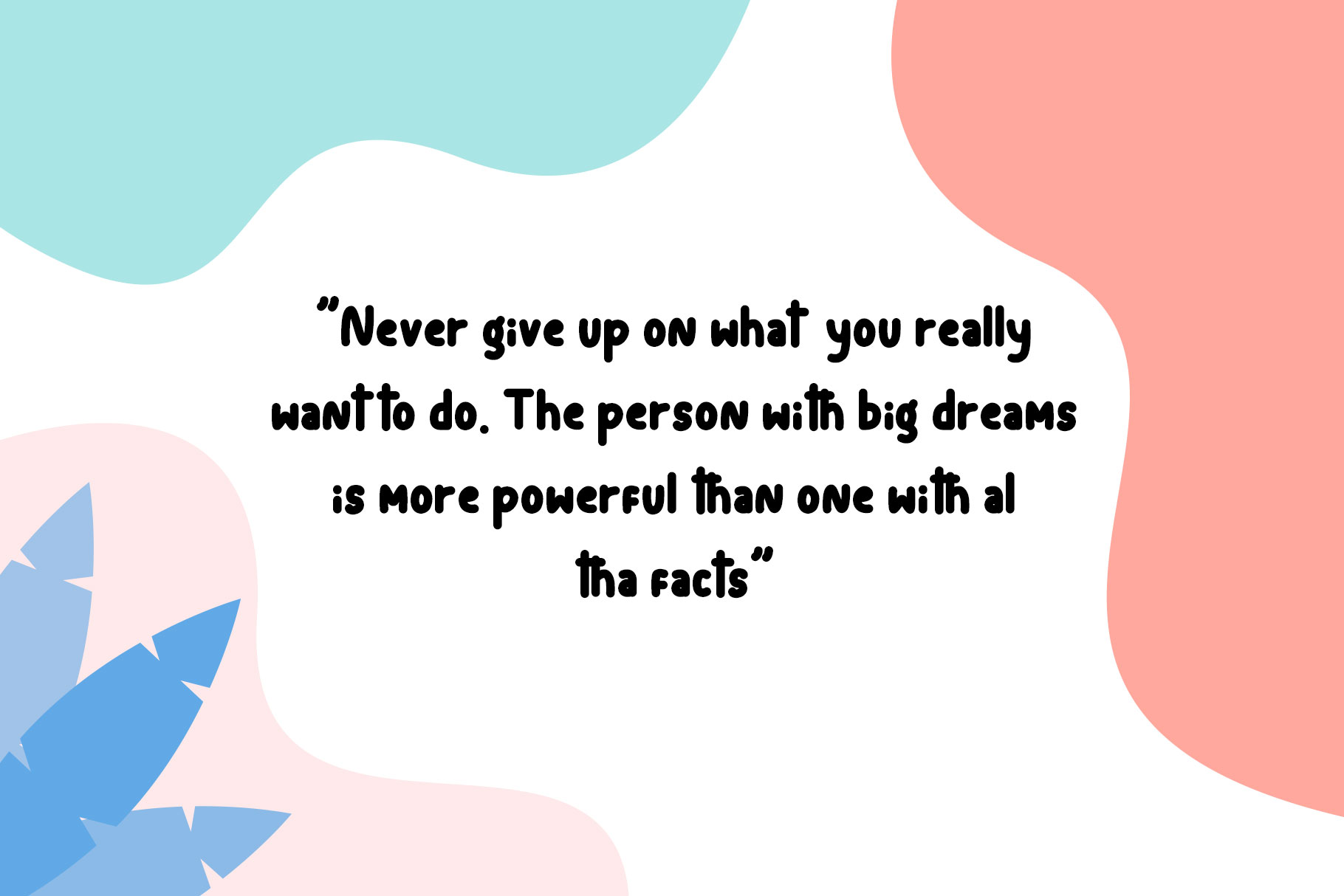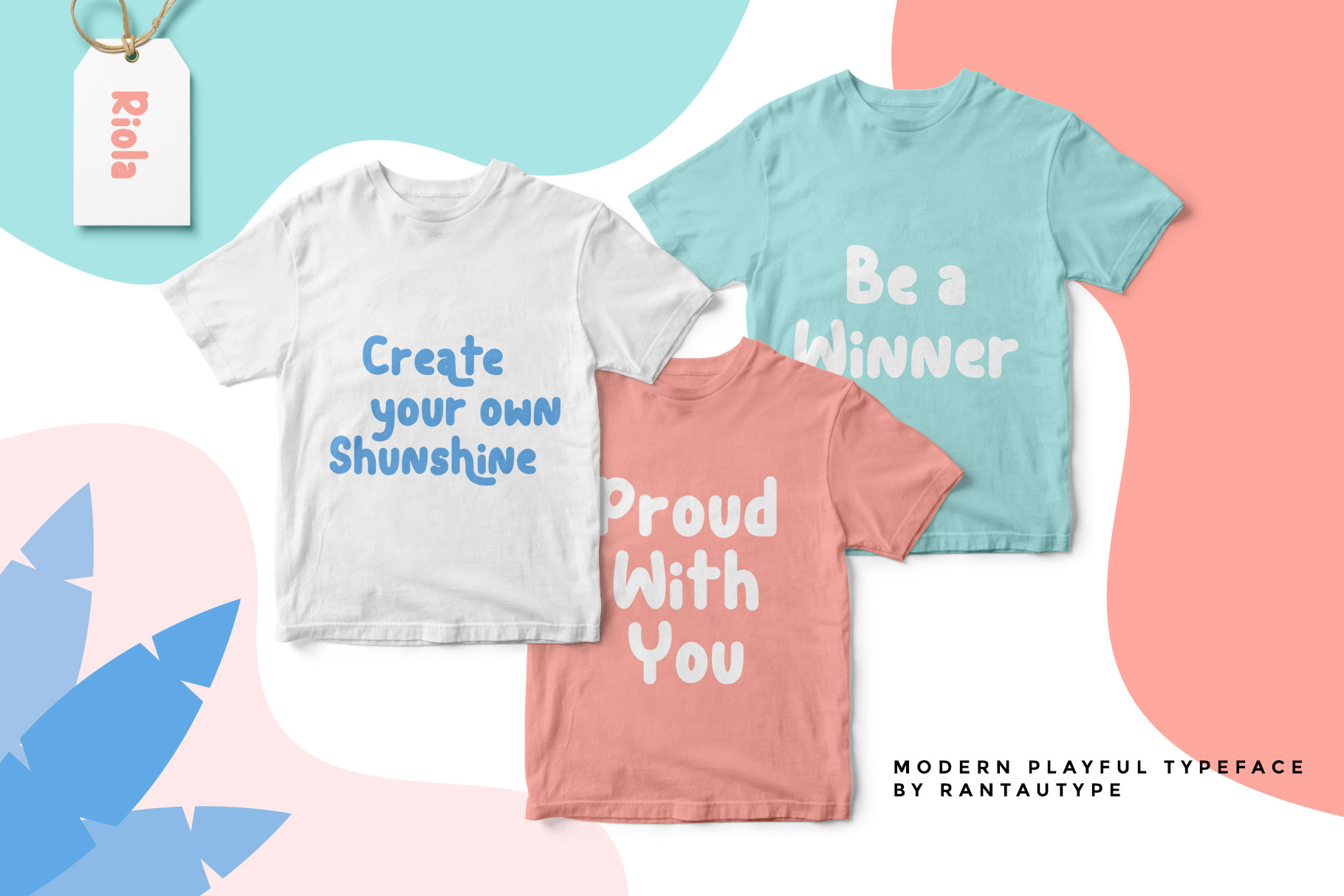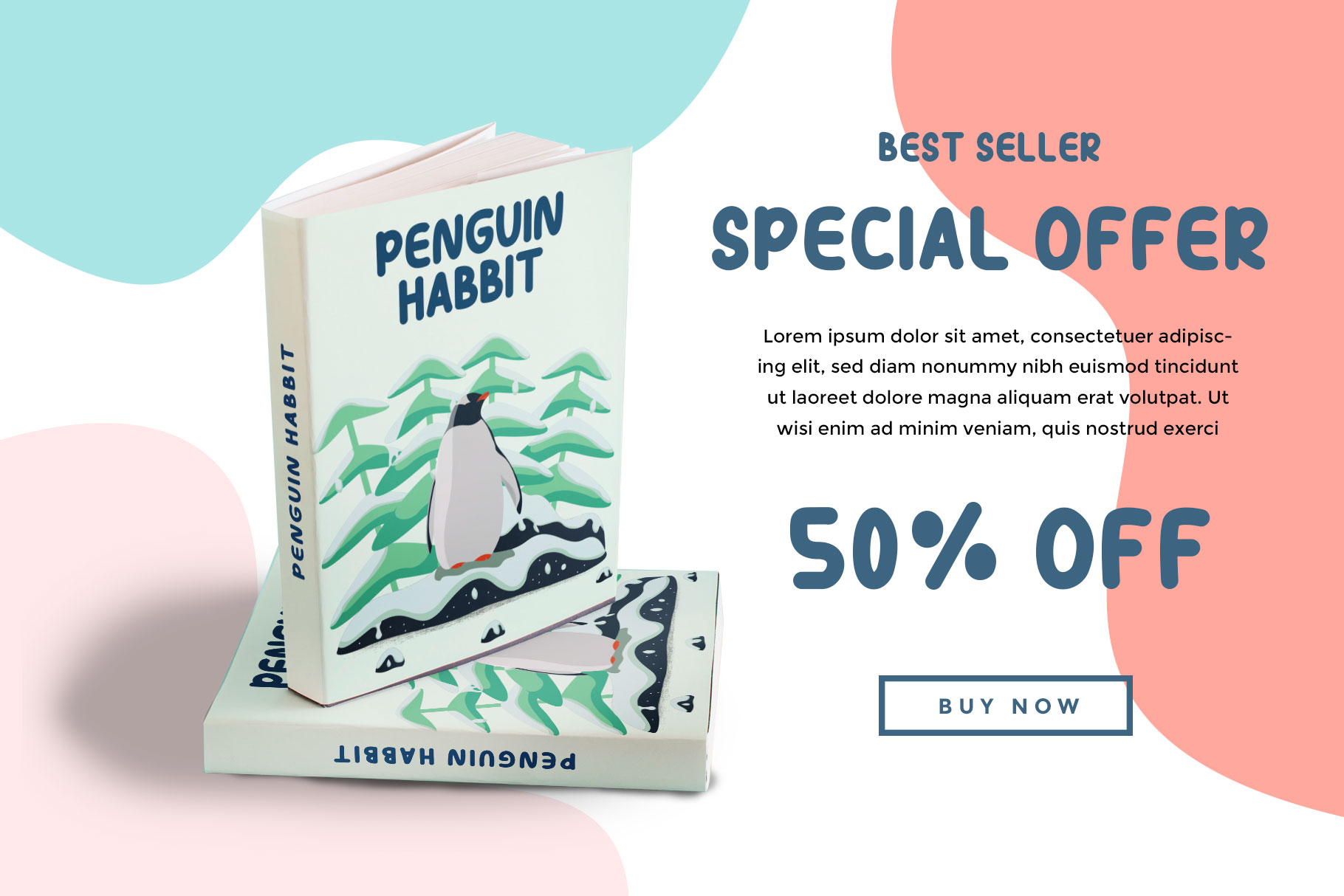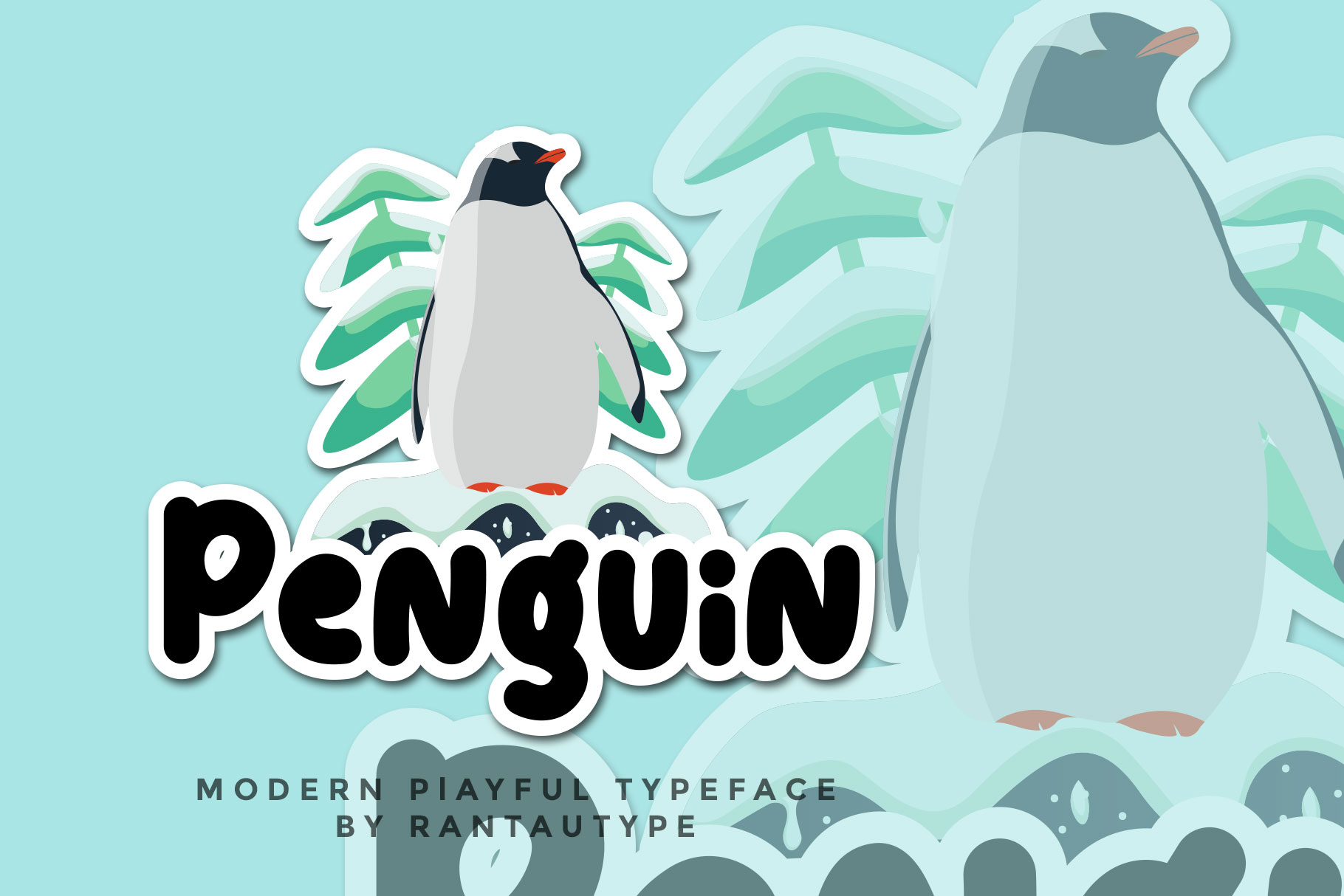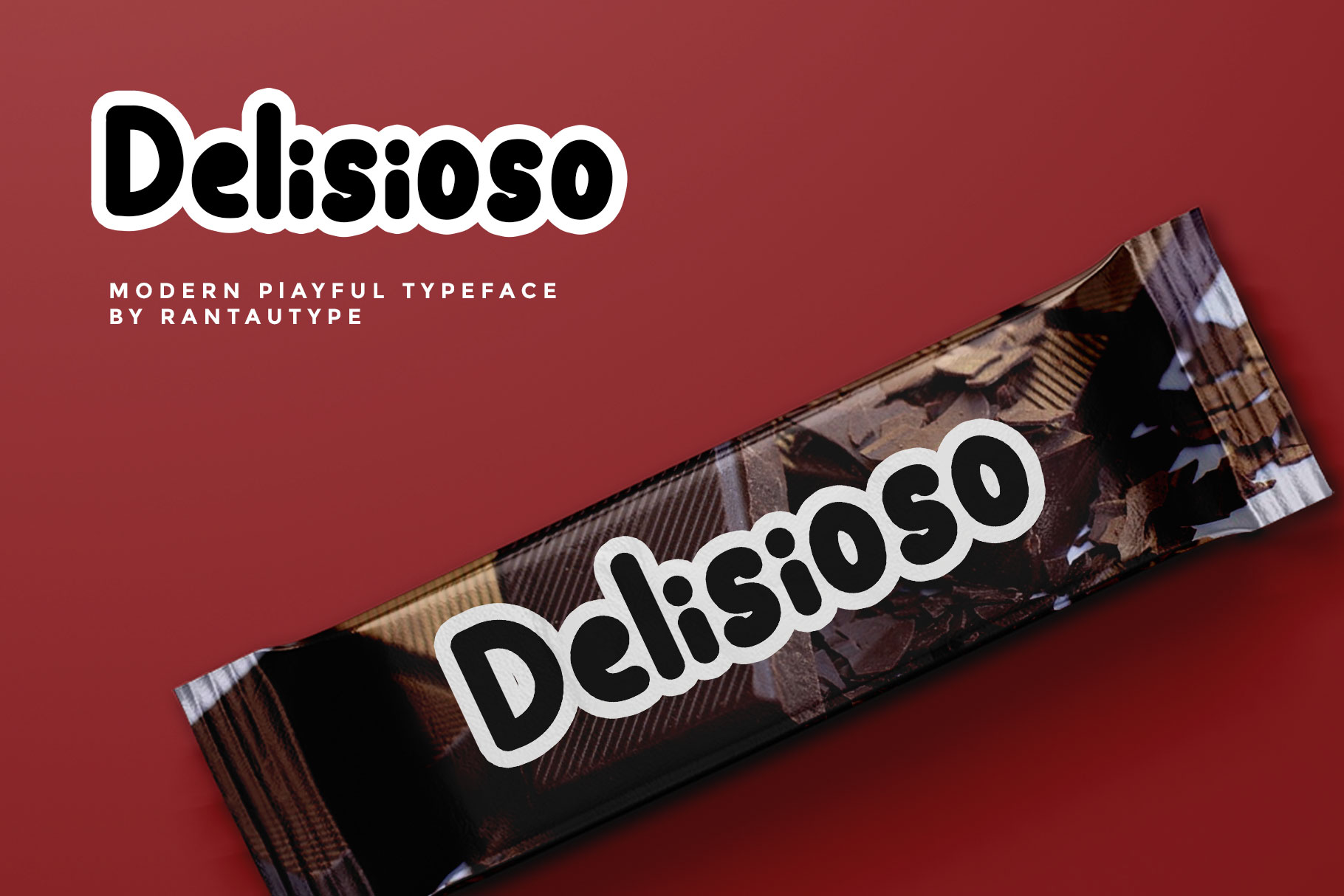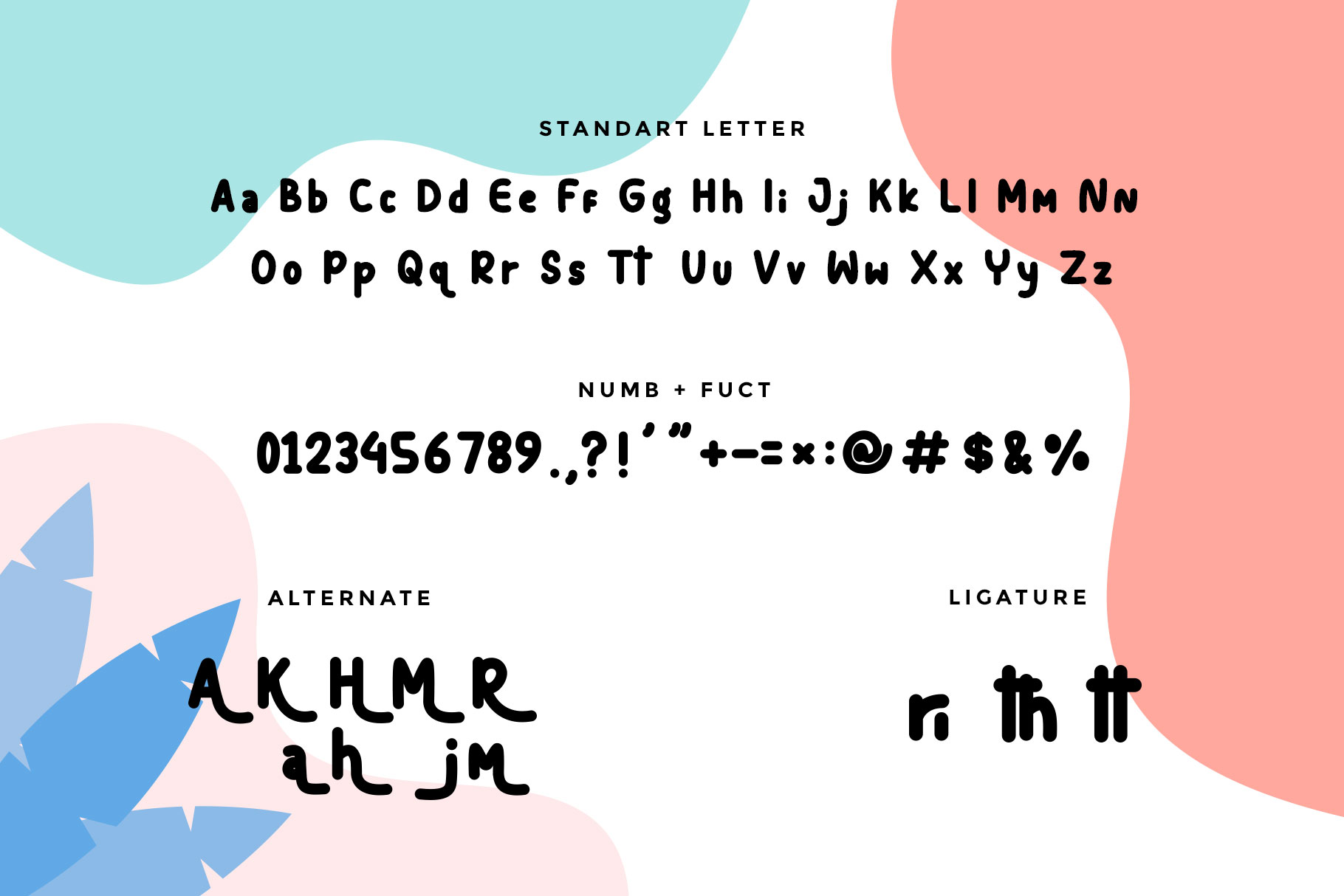
The Riola playful font
The Riola is modern playfun sans typeface which can be interpreted professional. we keep this font looks modern, fun, and catchy and easy to use. The Riola is the great choice for watermark on book cover, tittle, logo design, quotes, album cover, business card and many other design project. The Riola is here to make your work to high level!!!
• Basic Latin A-Z and a-z